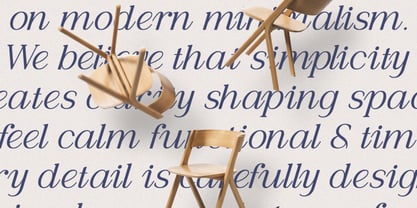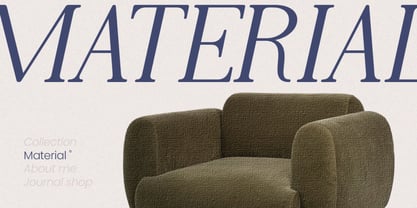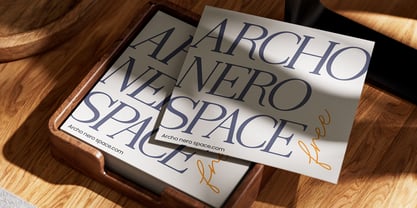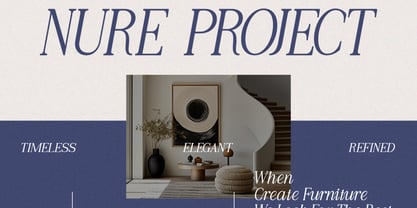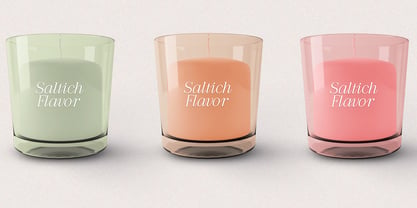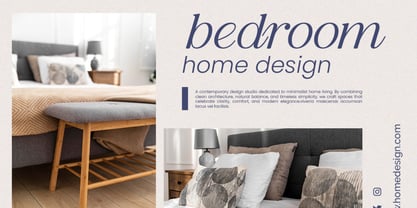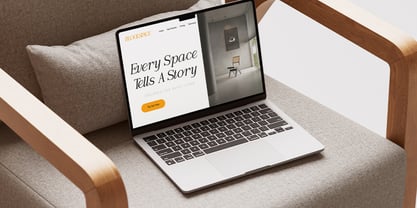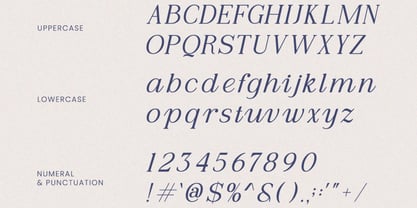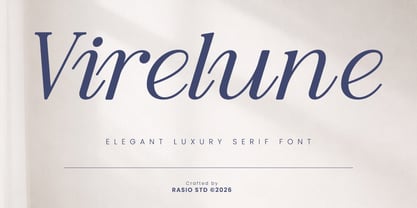
Virelune
by Rasio Studio
The Virelune Font Family was designed by Fajar Indra and published by Rasio Studio. Virelune contains 1 styles. More about this family
Virelune presents a refined modern serif with elegant proportions, delicate curves, and striking contrast. Its design reflects a contemporary editorial style while maintaining a timeless and graceful character. Carefully crafted for clarity and visual balance, it works seamlessly across branding, editorial layouts, and premium visual compositions. This font is highly relevant for luxury branding, editorial design, and high-end visual communication that requires elegance and clarity. It performs exceptionally well in fashion magazines, logo design, premium packaging, and marketing materials where a refined and modern serif presence is essential.